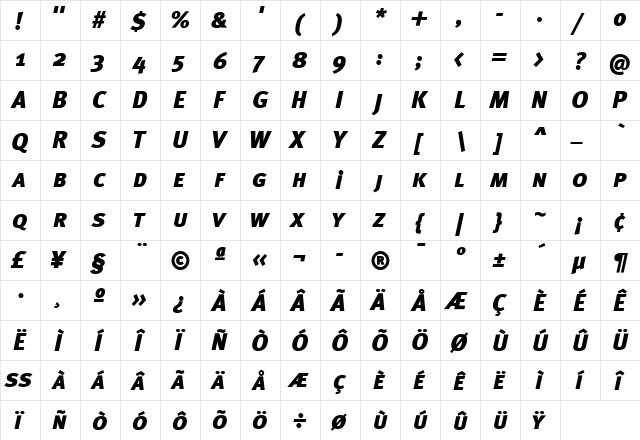
MetaBlackTurk Medium
Design Context for MetaBlackTurk Typeface
MetaBlackTurk offers clean, dependable letterforms without strong stylistic allegiance, making it a practical choice for designers who need flexibility.